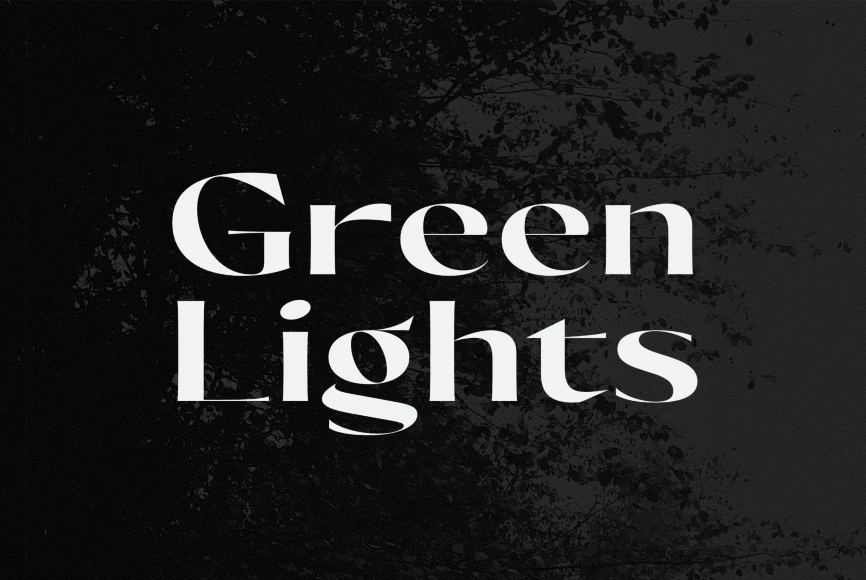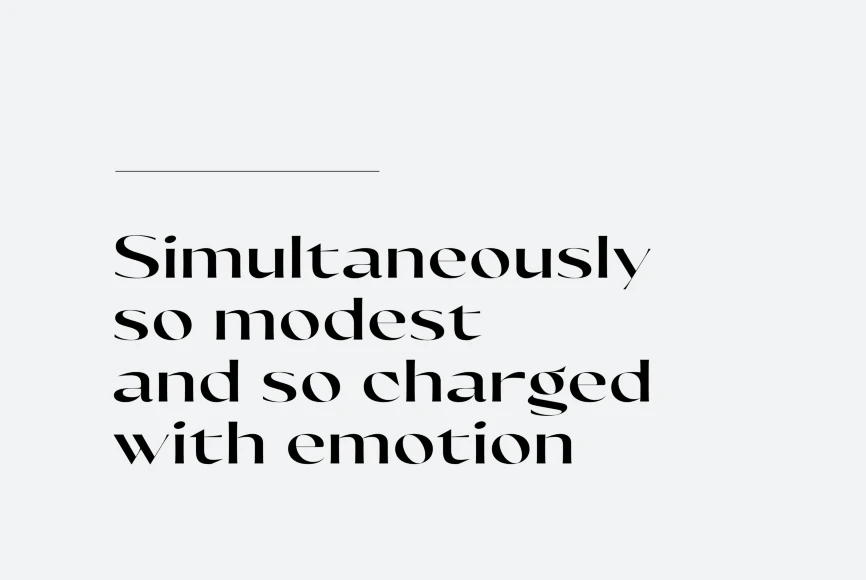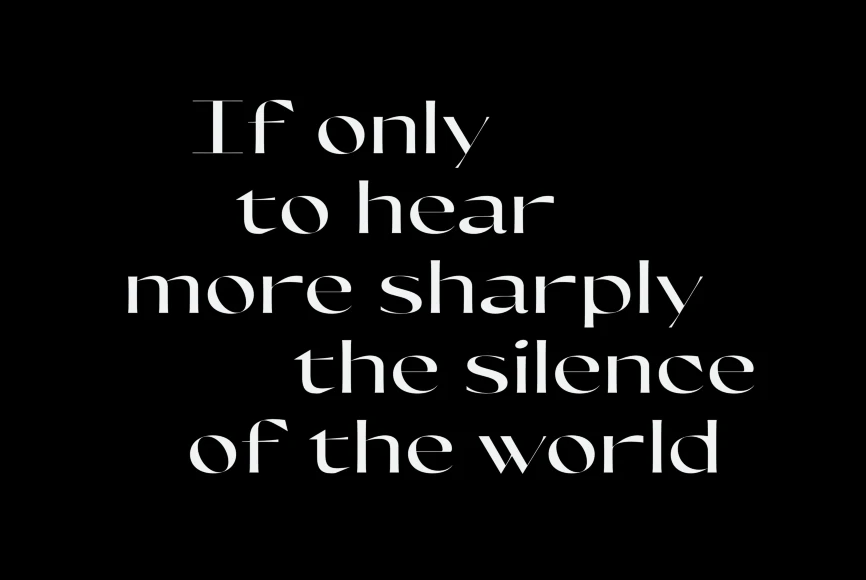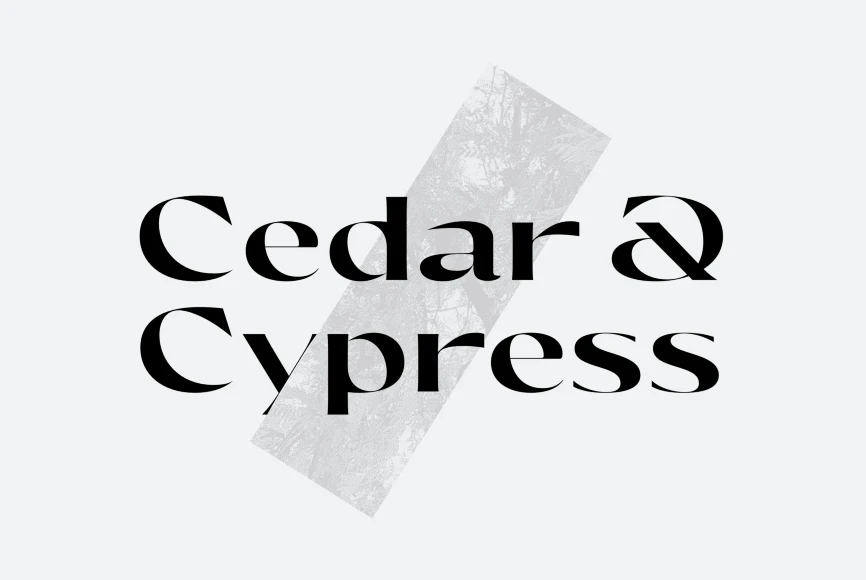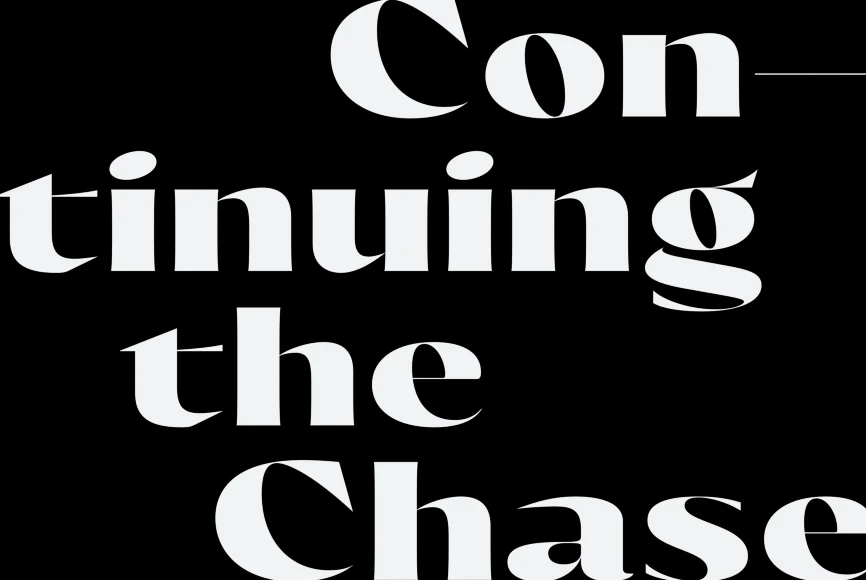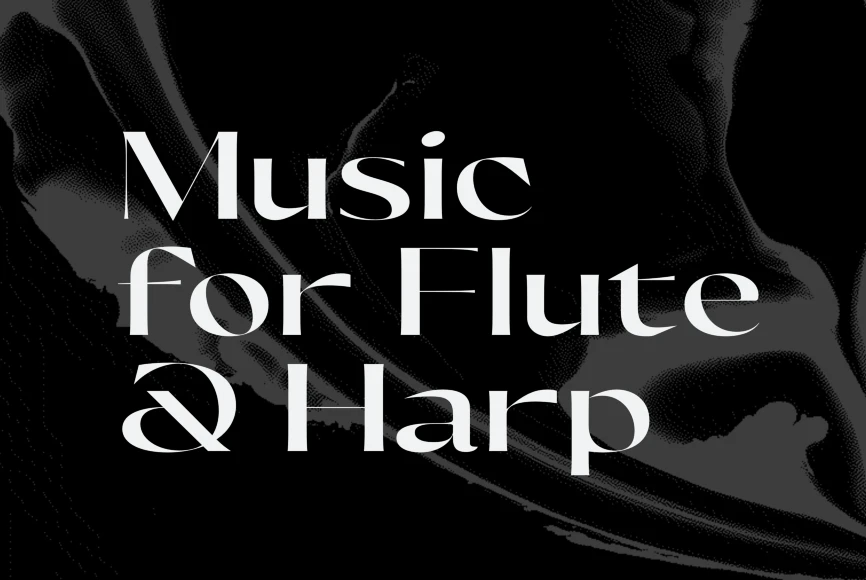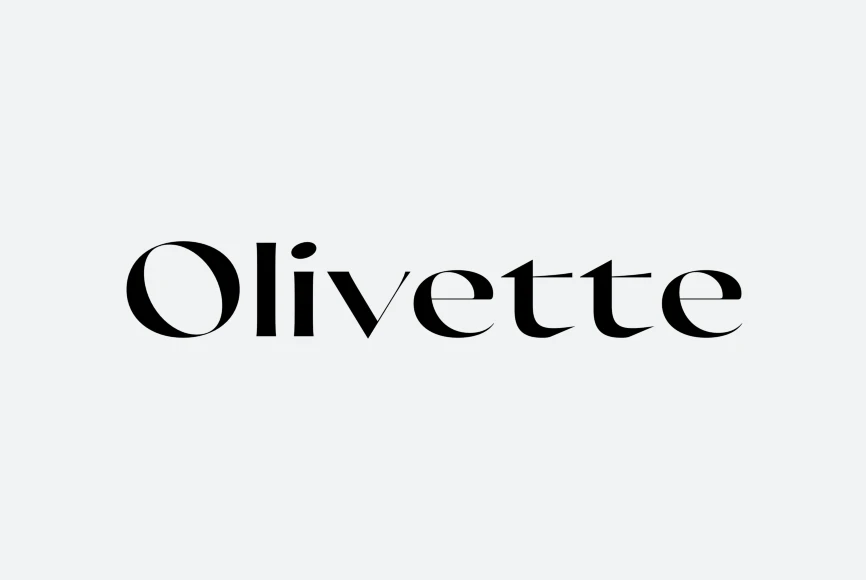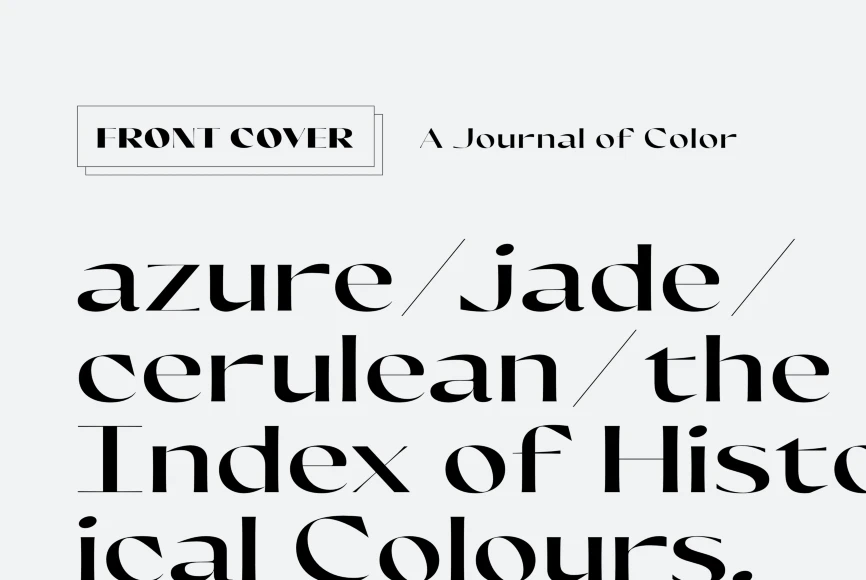
Olivette
From Connary Fagen Fonts
With an extreme stroke contrast and wide, spacious construction, Olivette blends understated minimalism with elegance and expression. Olivette’s fine details shine at large sizes on screen and in print. Olivette CF pairs well with simple typefaces set at smaller sizes, such as Greycliff CF and Artifex Hand CF. The key is to let Olivette breathe, setting it at large sizes with plenty of open space.
Designed by Connary Fagen